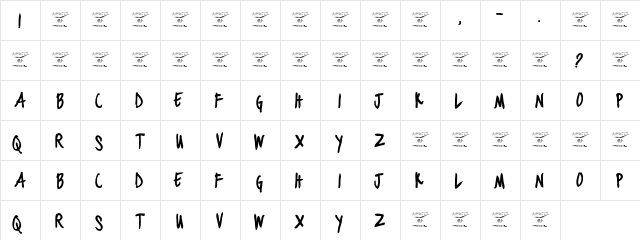
black jacket boys Bold Font Preview
black jacket boys Bold
black jacket boys Bold Font Details
| Foundry | Font Monger |
| Designer | Chris Vile |
Design Context for black jacket boys Typeface
black jacket boys is a composed and adaptable typeface that performs quietly and consistently across a wide range of design contexts. Its bold stroke weight gives it real presence on the page.